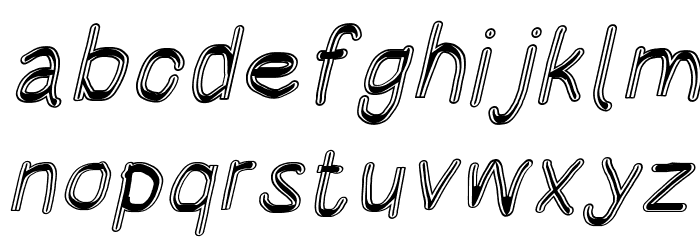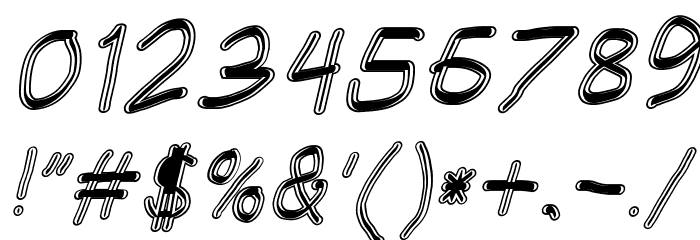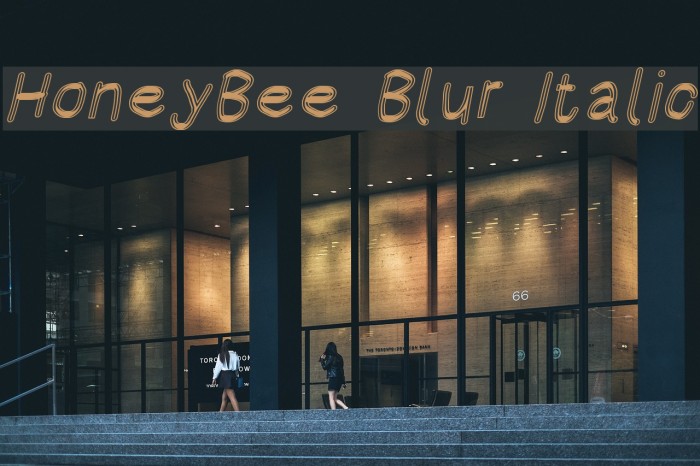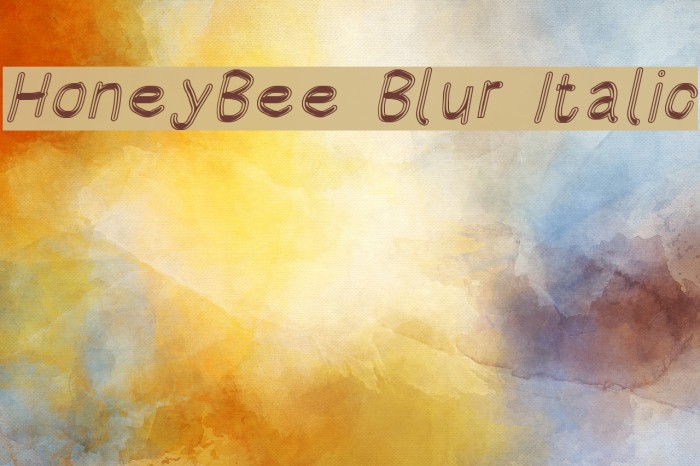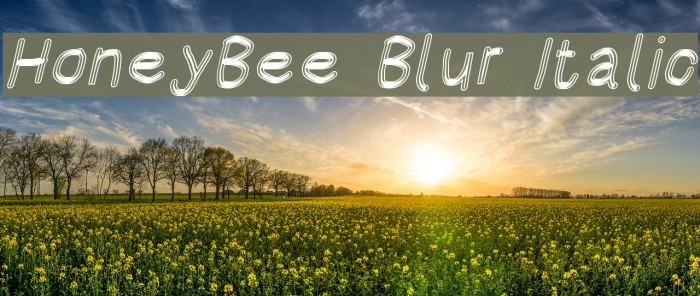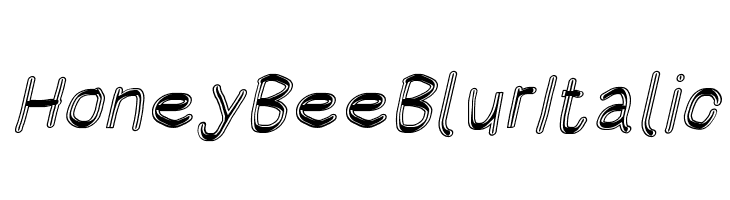
HoneyBee Blur Italic Font
This font features a playful and dynamic style with a blurred, italicized appearance. The characters are outlined with a bold, black stroke that gives them a distinctive, eye-catching look. The uppercase and lowercase letters maintain a consistent slant, enhancing the italic effect. The numbers and special characters follow the same design principles, ensuring uniformity across all glyphs. The font's unique style makes it suitable for creative and informal applications, where a touch of whimsy is desired. Its bold outlines and slanted form contribute to a lively and energetic aesthetic.
A playful, italicized font with bold outlines and a blurred effect.